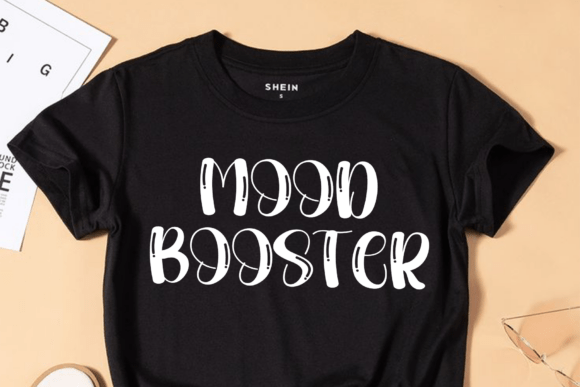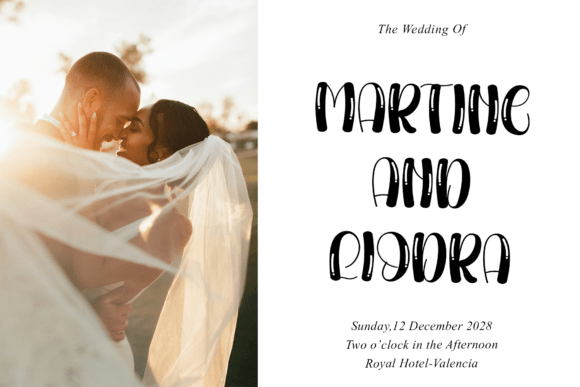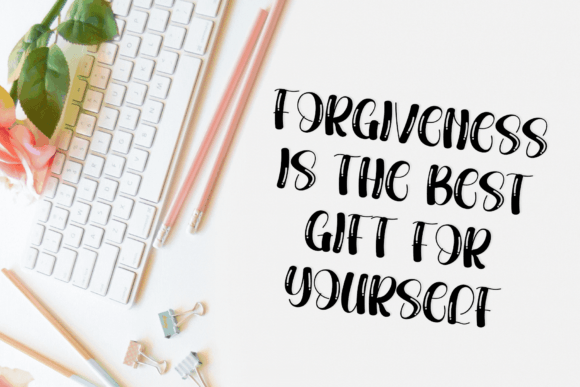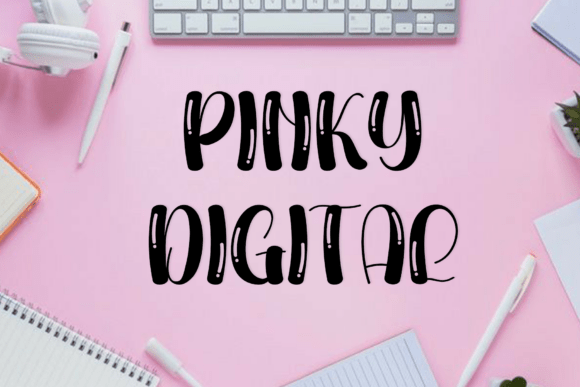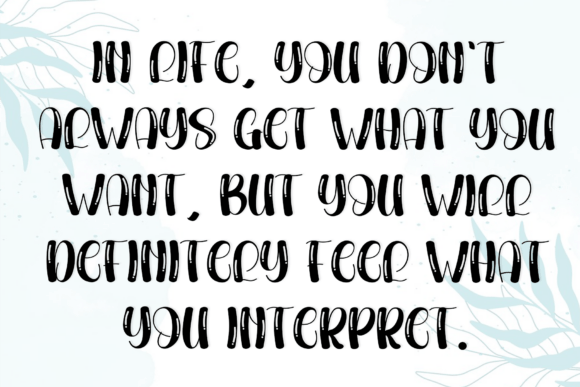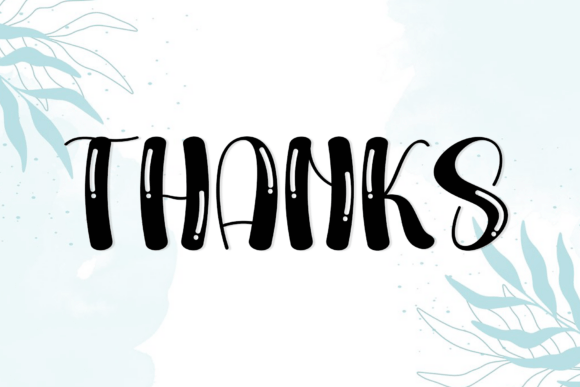
Introducing Glowing Font: Elevate Your Designs with Elegance and Sophistication
Are you looking for a font that exudes luxury, sophistication, and modernity? Look no further than Glowing Font, a beautiful handwritten script font that is perfect for designers and crafters seeking to add a touch of elegance to their projects. In this article, we’ll dive into the features and benefits of Glowing Font, and explore how it can elevate your designs to the next level.
What is Glowing Font?
Glowing Font is a stunning handwritten script font that embodies the essence of modern sophistication. Its fluid strokes and elegant letterforms make it an ideal choice for designs that require a high level of refinement and luxury. Whether you’re creating wedding stationery, event branding, editorial signatures, or lifestyle photography overlays, Glowing Font is the perfect choice.
Key Features of Glowing Font
- Elegant and Fluid Design: Glowing Font boasts a beautiful, flowing design that is both modern and sophisticated.
- Handwritten Script Style: The font’s handwritten script style adds a personal touch to your designs, making them stand out from the crowd.
- Luxury and Sophistication: Glowing Font is perfect for high-end designs that require a touch of luxury and sophistication.
- Versatile: The font is suitable for a wide range of design applications, including wedding stationery, event branding, editorial signatures, and lifestyle photography overlays.
Use Cases for Glowing Font
Glowing Font is an incredibly versatile font that can be used in a variety of design applications. Here are some use cases to get you started:
- Luxury Wedding Stationery: Create stunning wedding invitations, save-the-dates, and thank-you cards with Glowing Font.
- Intimate Event Branding: Use Glowing Font to create elegant event branding, including invitations, menus, and signage.
- High-End Editorial Signatures: Add a touch of sophistication to your editorial signatures with Glowing Font.
- Sophisticated Lifestyle Photography Overlays: Use Glowing Font to create beautiful overlays for your lifestyle photography, adding a touch of elegance to your images.
Why Choose Glowing Font?
With so many fonts available, why choose Glowing Font? Here are just a few reasons why Glowing Font stands out from the crowd:
- Unique and Exclusive: Glowing Font is a unique and exclusive font that will set your designs apart from the rest.
- High-Quality Design: The font is designed with high-quality craftsmanship, ensuring that it looks stunning in any design application.
In conclusion, Glowing Font is an exceptional handwritten script font that is perfect for designers and crafters seeking to add a touch of elegance and sophistication to their designs. With its fluid strokes, elegant letterforms, and luxurious feel, Glowing Font is ideal for a wide range of design applications, from luxury wedding stationery to sophisticated lifestyle photography overlays. If you’re looking for a font that will elevate your designs to the next level, look no further than Glowing Font.